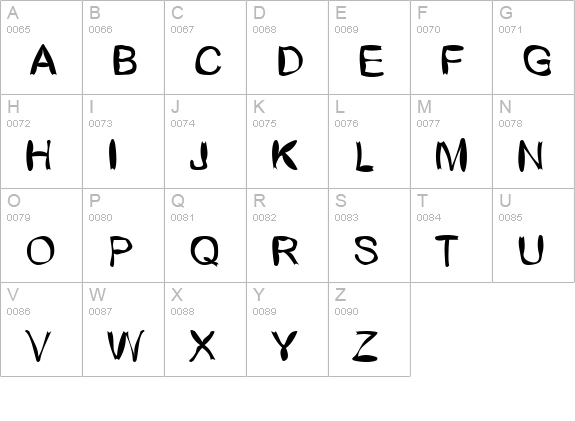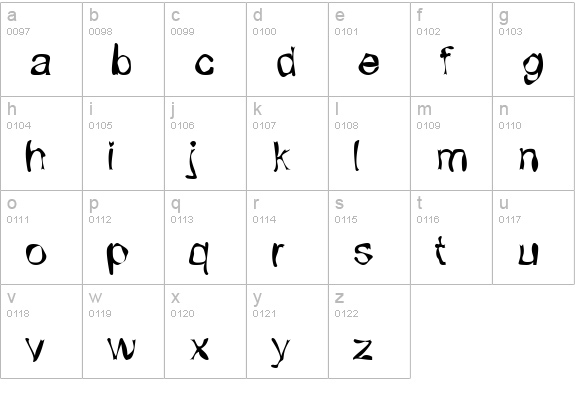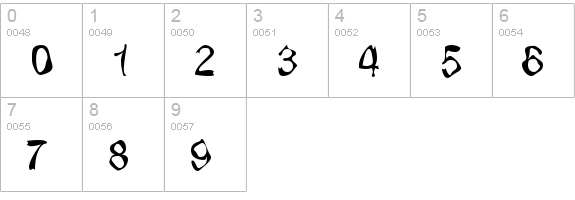
FreakedArial Font Details
FreakedArial font is a unique and eye-catching typeface that is sure to make your designs stand out. With its quirky and playful style, FreakedArial adds a fun and energetic touch to any project. This font is perfect for posters, flyers, logos, and more. The best part? FreakedArial font is available for free download at FontsMarket.com. You can easily access this fantastic font and start using it in your designs today. Don't miss out on this opportunity to add a touch of creativity to your projects with FreakedArial font. Download it now and let your imagination run wild!